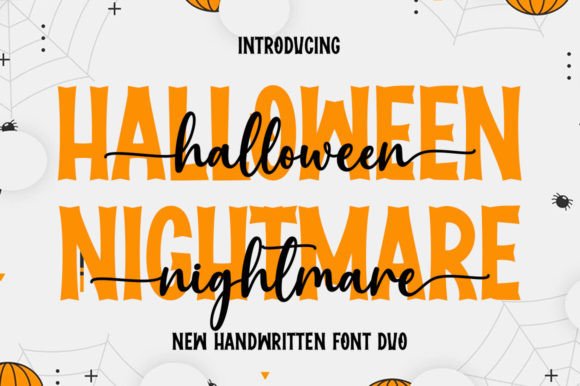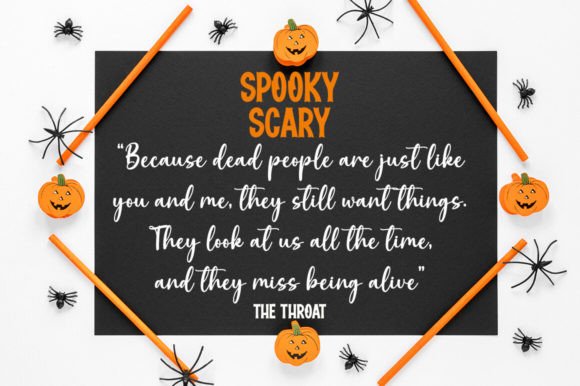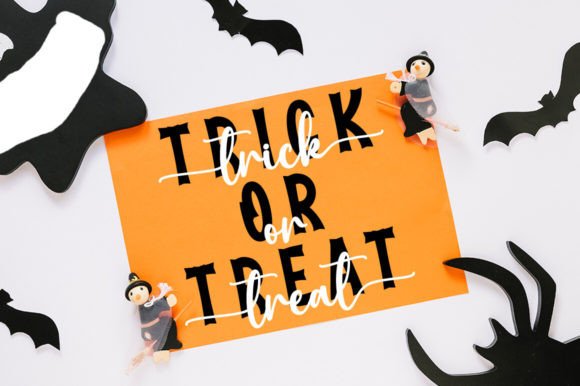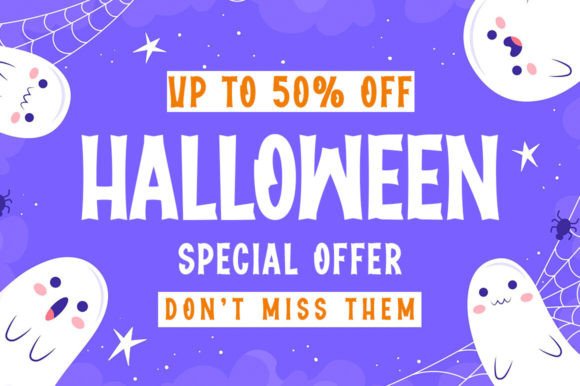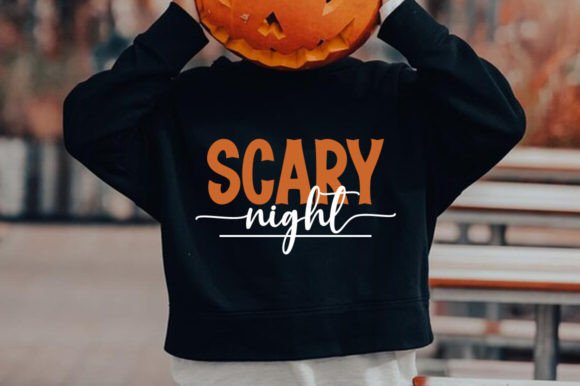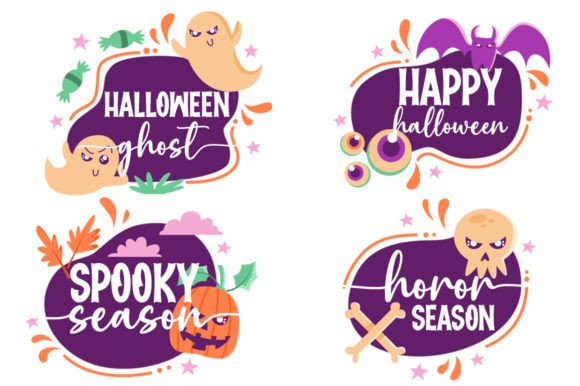
Introduction to Halloween Nightmare Duo Font
Halloween Nightmare Duo is a stylish and delicate duo font (sans serif and script) suitable for a wide spectrum of applications.
From greeting cards to headlines, this font will guarantee a romantic touch to each of your creations Halloween Nightmare Duo is PUA encoded which means you can access all of the glyphs and ligatures with ease.